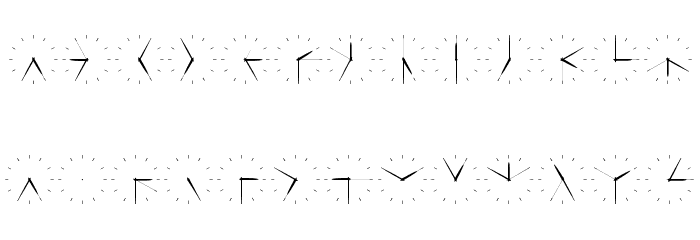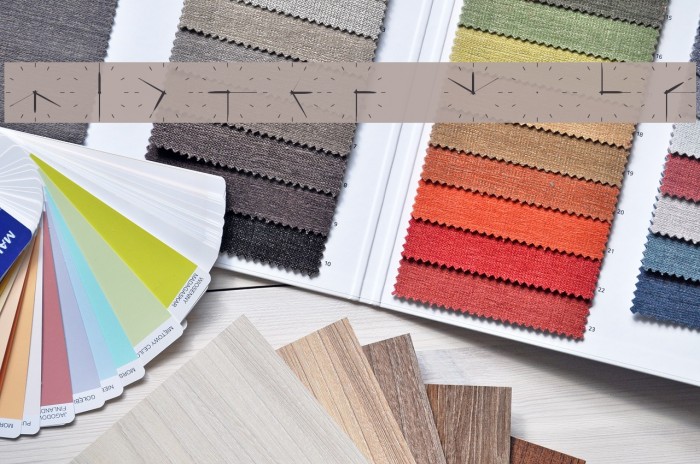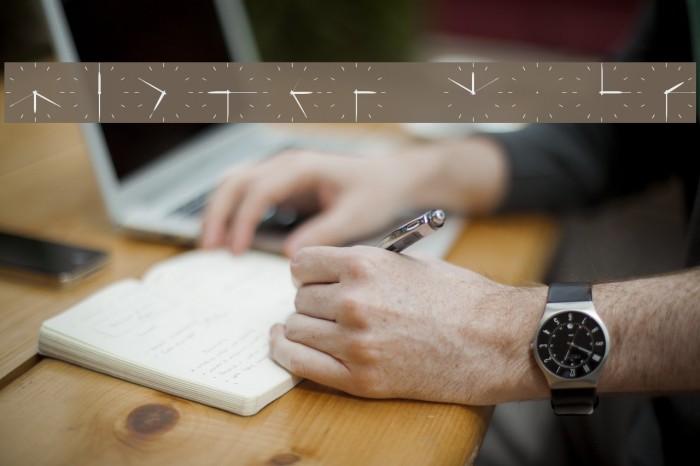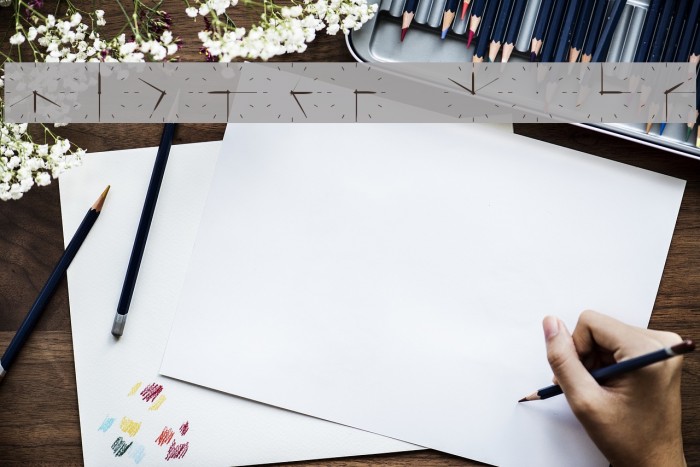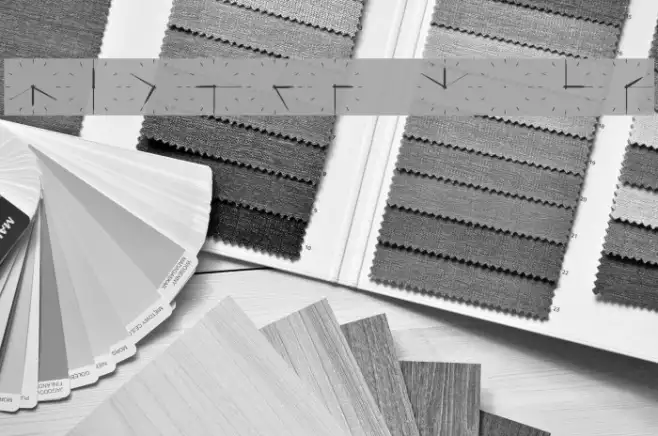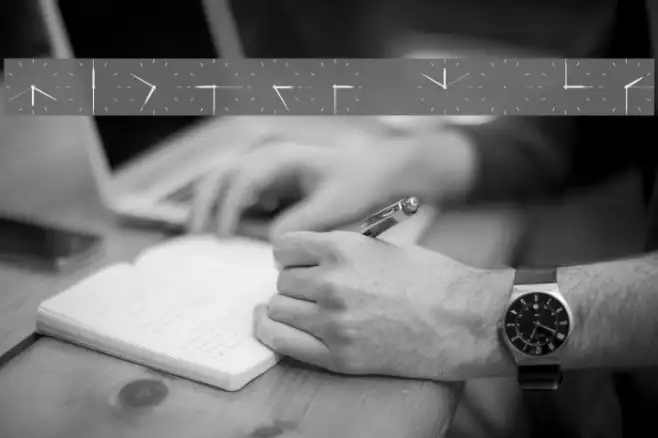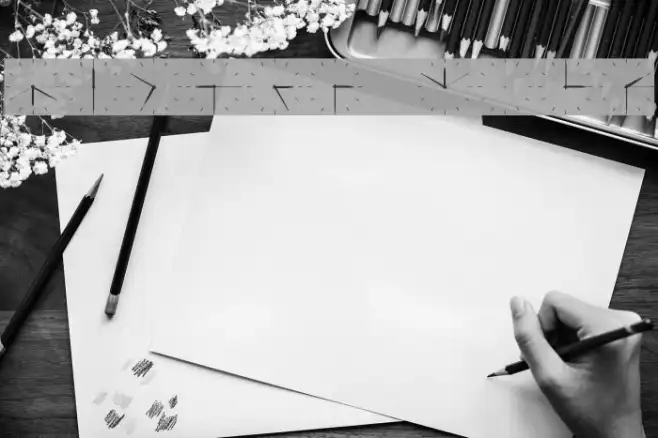
mister wolf Font
This font features a highly abstract and decorative design, characterized by a series of angular and geometric shapes. Each character is composed of minimalistic lines and angles, creating a futuristic and avant-garde appearance. The design is consistent across all characters, maintaining a uniform look that emphasizes its modern and artistic style. The font lacks traditional letterforms, instead opting for a unique visual representation that could be interpreted as a form of symbolic or conceptual art. The overall aesthetic is clean and precise, with a focus on simplicity and innovation.
An abstract, geometric font with a futuristic and artistic design.
- Proposed Projects: Ideal for modern art installations, futuristic branding, conceptual design projects, and digital art pieces.
- Weight: Light
- Character Spacing: Wide
- Use Case: Logos, Art installations, Conceptual designs